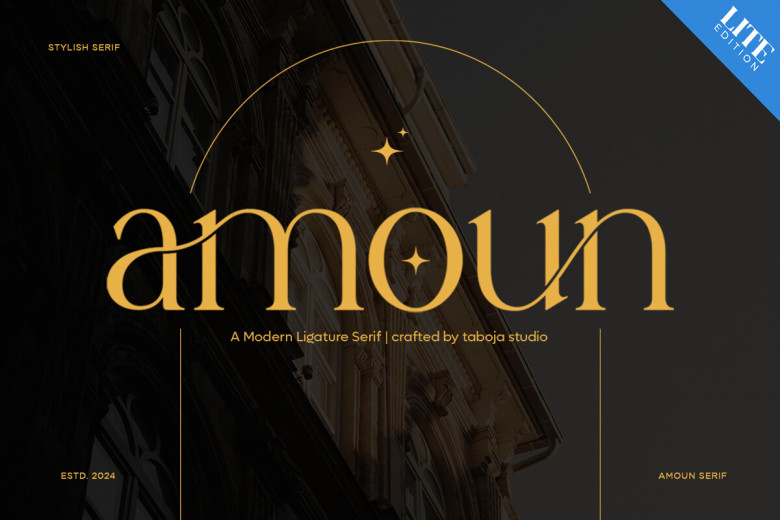
Amoun Font
The Lite version of this font provides an exclusive preview to experience its distinctive features and essence prior to the full version becoming available. With carefully chosen characters, the Lite version offers stunning clarity as well as captivating design capabilities.
Amoun modern ligature Serif is crafted for versatility and sophistication, making it the ideal choice for use across a range of design projects. The delicate blend of thin and thick strokes gives an elegant and timeless appearance making this font suitable for editorial layouts, branding initiatives and other creative endeavours.
With its precise design, beautiful alternate swashes, and range of ligatures available, this font makes an elegant and breathtaking statement in your creative projects.
Amoun Serif Font